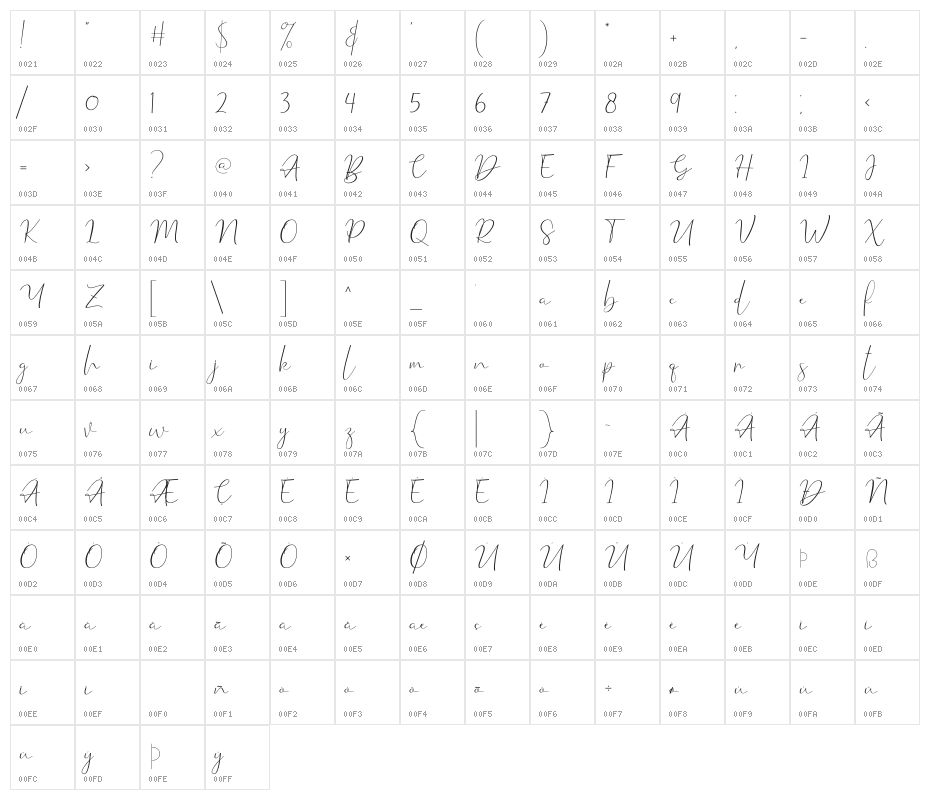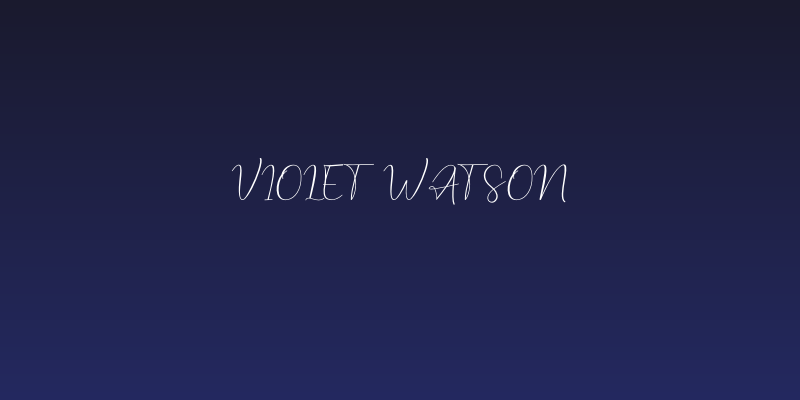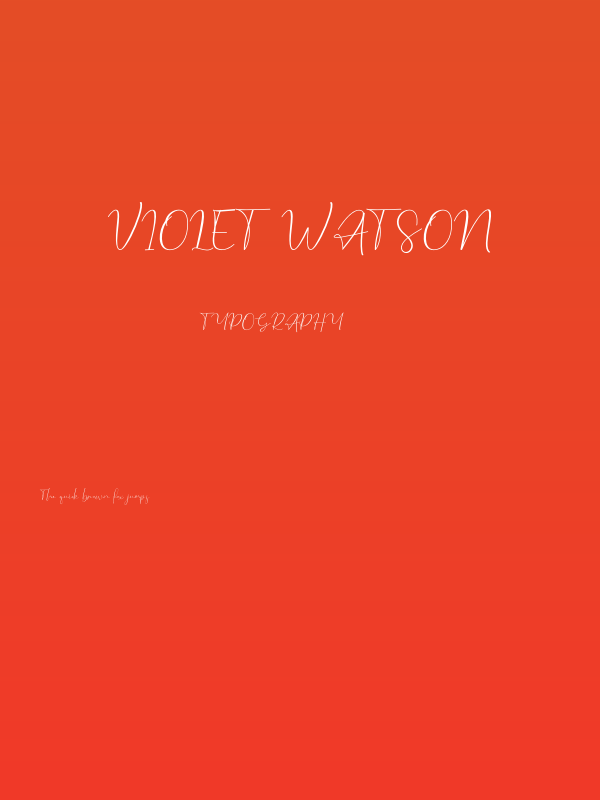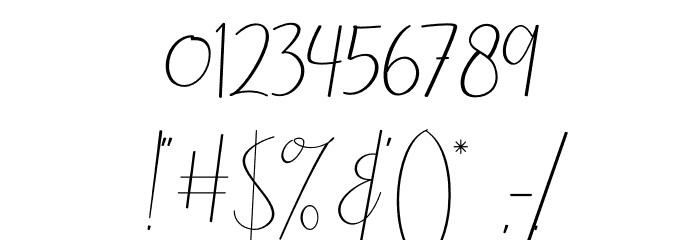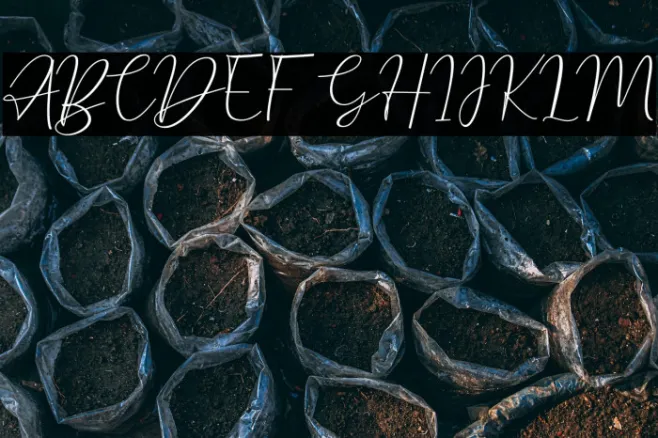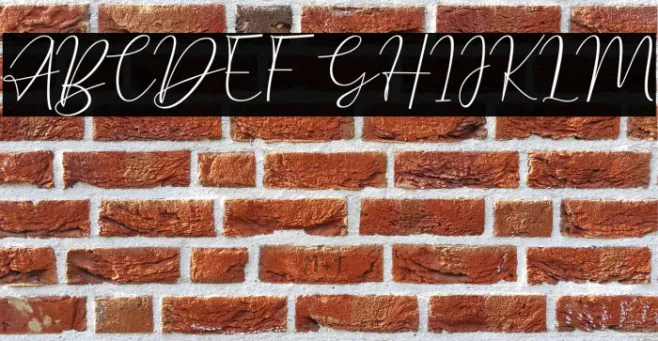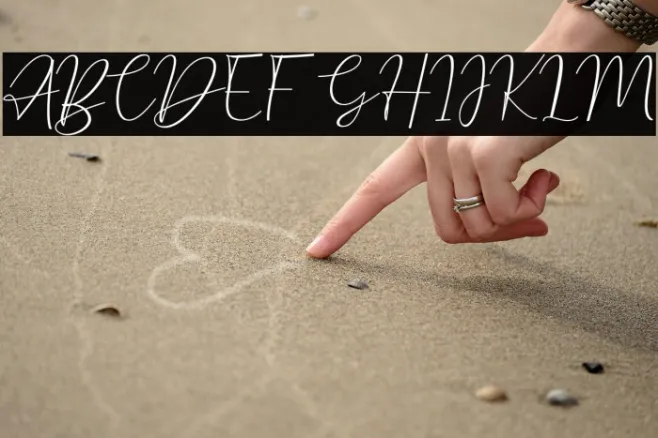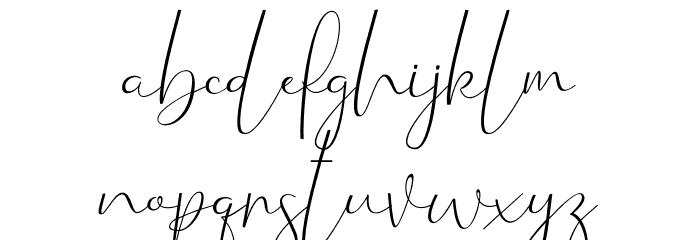
Violet Watson Font
Violet Watson Description
This font features an elegant, flowing script style that combines both uppercase and lowercase letters with a sense of fluidity and grace. The characters are connected, giving it a handwritten appearance that is both sophisticated and approachable. The strokes are thin and delicate, with a consistent flow that adds to its charm. The numerals and special characters maintain the same elegant style, ensuring a cohesive look across all text. This font is perfect for projects that require a personal touch, such as invitations, greeting cards, and branding materials.
| Use Case | Headlines, Invitations, Branding |
| Proposed Projects | Ideal for wedding invitations, personal branding, greeting cards, and elegant logos. |